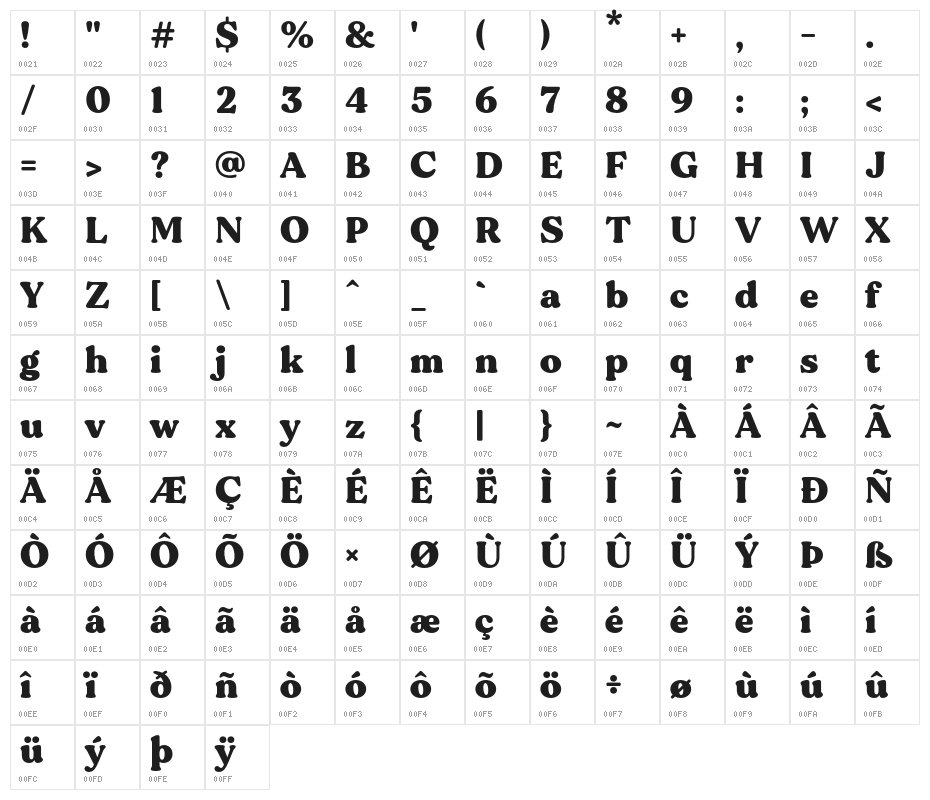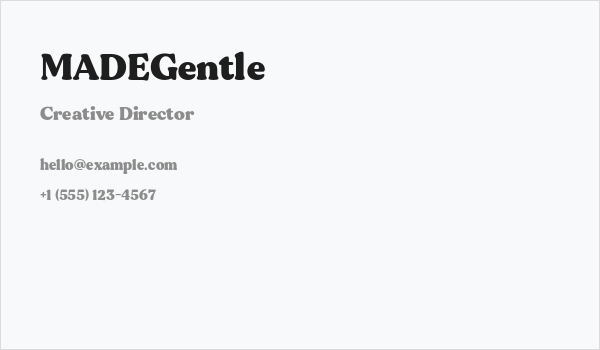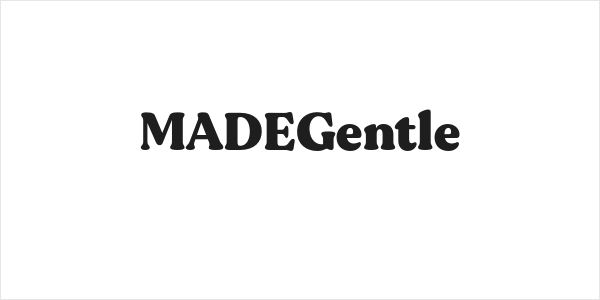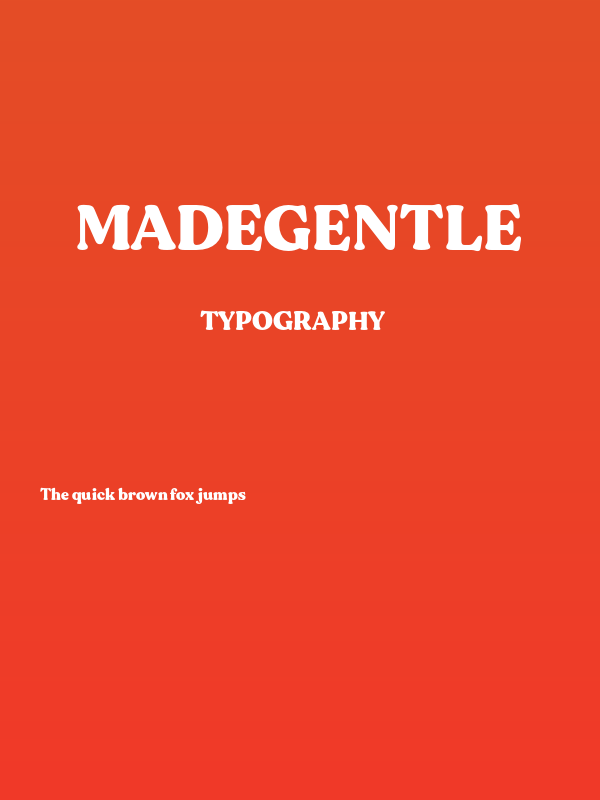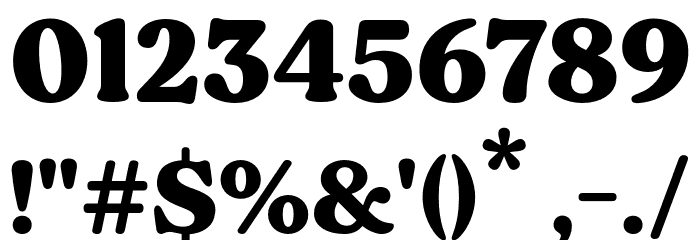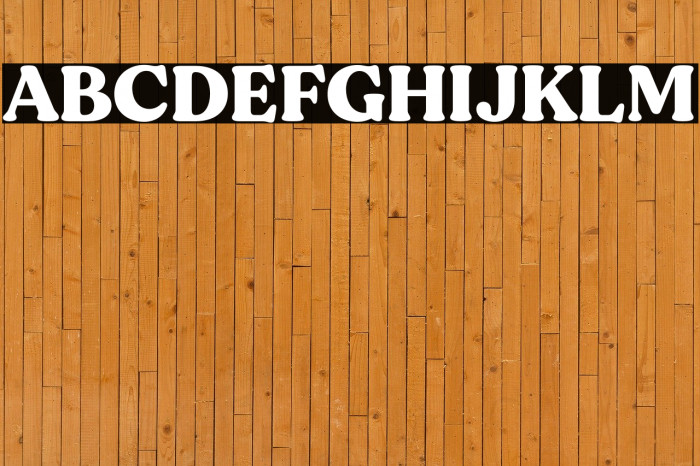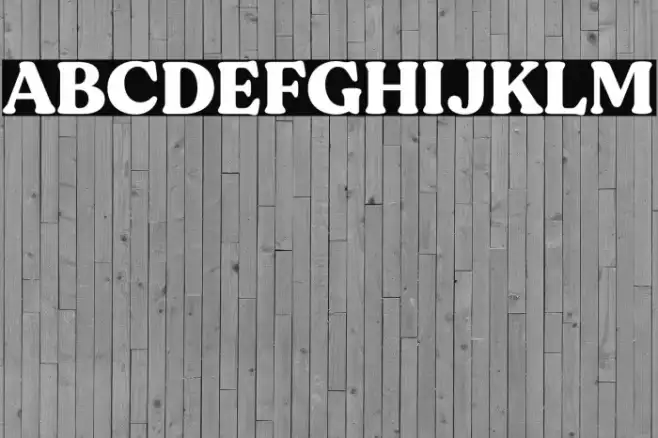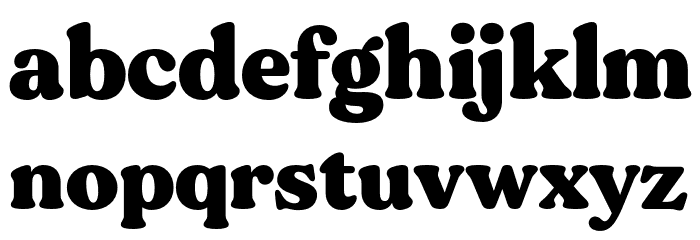
MADEGentle Font
MADEGentle Description
This font features a bold and robust design with thick, rounded serifs that give it a strong presence. The characters are well-defined, with a slightly condensed appearance that maintains readability while maximizing space efficiency. The uppercase letters are particularly striking, with a uniform height and width that create a harmonious look. The lowercase letters complement the uppercase with a slightly softer touch, maintaining the overall bold aesthetic. Numbers are equally bold and clear, making them suitable for impactful displays. The special characters are consistent with the font's bold style, ensuring a cohesive look across all text elements.
| Proposed Projects | Ideal for branding, headlines, posters, and any project requiring a strong, impactful typeface. |